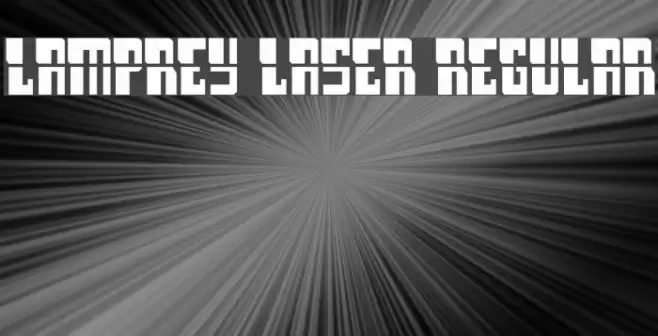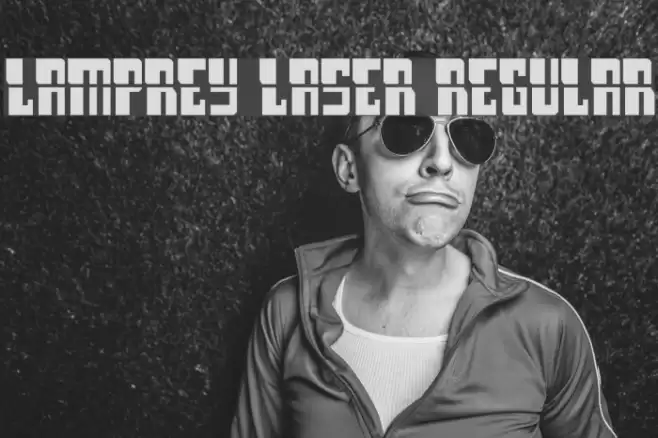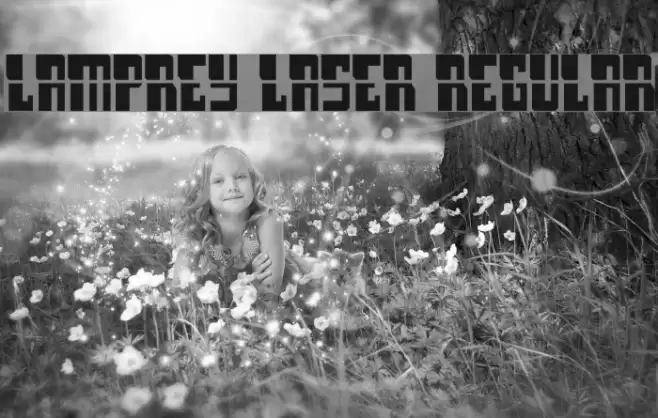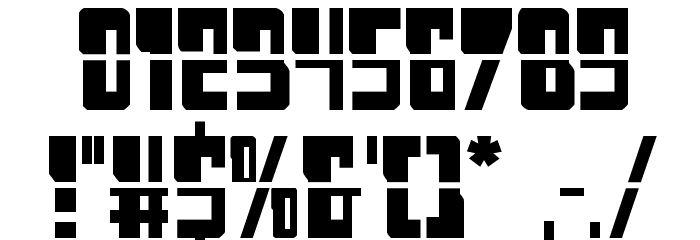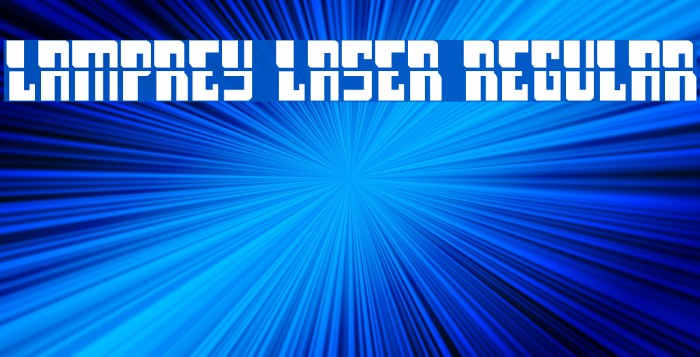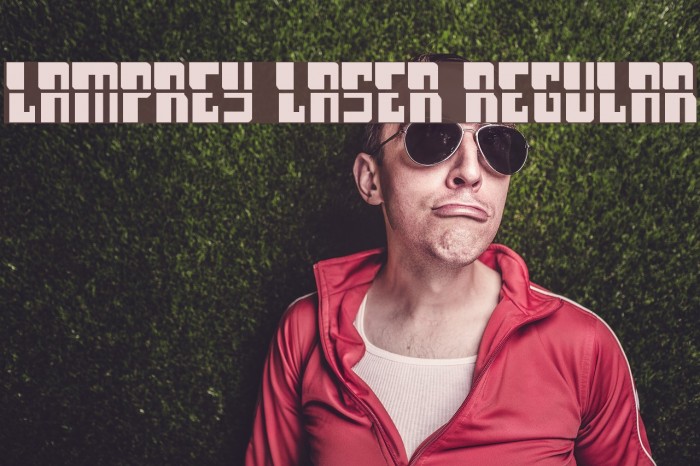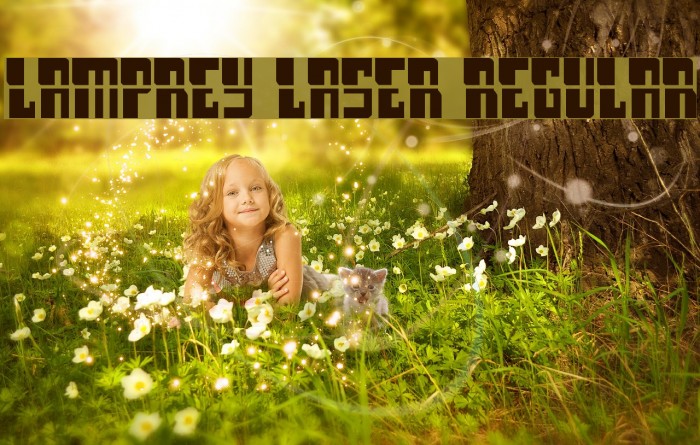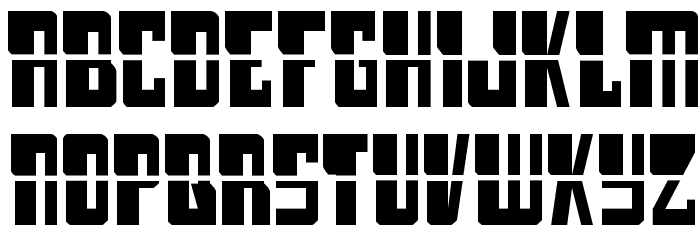
Lamprey Laser Regular Font
Lamprey Laser Regular Description
This font features a bold, geometric design with a futuristic aesthetic. The characters are constructed with sharp angles and straight lines, creating a blocky and robust appearance. The uppercase letters are particularly striking, with a uniform height and width that emphasize the font's modern and industrial feel. The lowercase letters maintain the same geometric style, ensuring consistency throughout. Numbers and special characters are designed to match the boldness and angularity of the alphabet, making this font suitable for attention-grabbing headlines and displays. Its unique style is reminiscent of digital or sci-fi themes, making it ideal for projects that require a strong visual impact.
A bold, geometric font with a futuristic and industrial design.
- Proposed Projects: Ideal for sci-fi themed posters, video game titles, technology branding, and futuristic event flyers.
- Overall Style: Futuristic